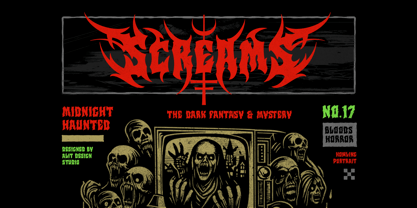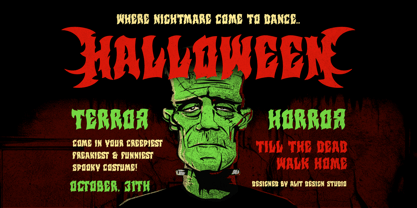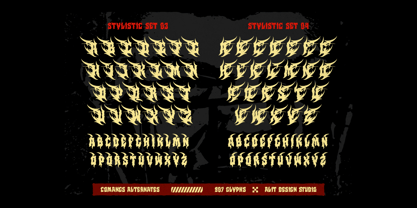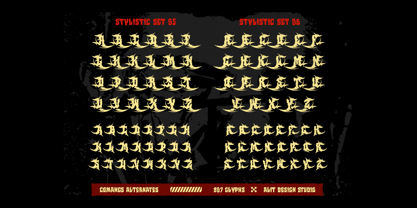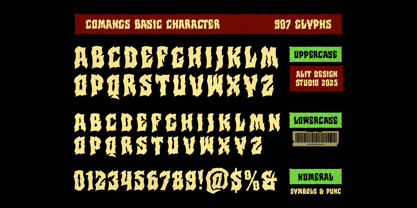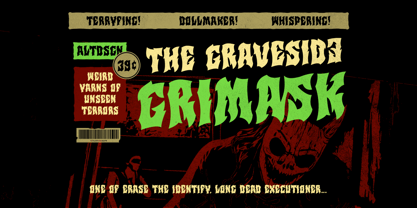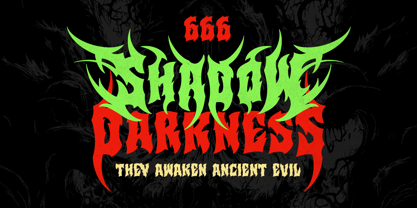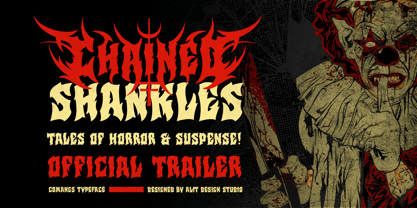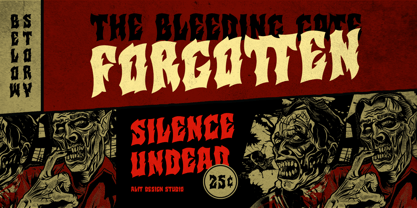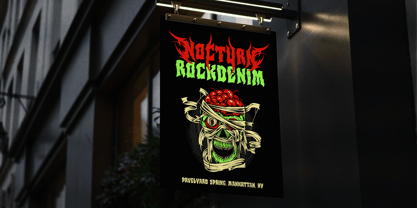
Comangs
Die Schriftfamilie Comangs wurde von Alit Suarnegara entworfen und von Alit Design veröffentlicht. Comangs enthält 1 Stile.
Comang Typeface – Thorned. Twisted. Terrifying.
Proudly handcrafted by Alit Design Studio 2025, the Comang Typeface is a viciously bold, dark letter font built for creators who dare to disturb. Inspired by sadistic cartoon horror, street metal art, and the shadows of urban nightmares, Comang is a display font that claws into the eye and doesn’t let go.
With sharp thorn-like serifs, aggressive curves, and an intense silhouette, each glyph looks like it could cut through the screen. Yet, beneath the violence lies clarity — a design miracle where fierce form meets functional readability.
💀 Font Vibe & Style
• A twisted hybrid of cartoon madness and horror brutality
• Perfect for horror movie posters, band logos, tattoo-inspired merch, underground zines, or anything that screams rebellion
• Evokes fear, adrenaline, and chaos, but stays surprisingly clean to the eye
Core Features
• 🔢 907 meticulously crafted characters – A massive set covering essentials, symbols, and more
• 🔁 Alternates & Swashes – Shape-shifting characters for dynamic lettering styles
• 🌍 Multilingual Support – Frighten the world in multiple languages
• 🔓 PUA Encoded – Full access to all glyphs, no fancy software required
• ✒️ Handcrafted – Designed with passion, not pixels
🎯 Why Choose Comang? Because you don’t just want to make a title — you want to make a statement. Comang is for those who dare to push the envelope, who revel in the grotesque, and who want their words to bleed emotion.
🧠 Ideal For:
• Horror and thriller film branding
• Heavy metal or punk album covers
• Gothic or underground fashion labels
• Alternative festival posters
• Extreme sports branding
• Game and comic titles in the horror/action genre
🔥 Comang isn’t just a font. It’s a weapon. Let it rip through your next project.